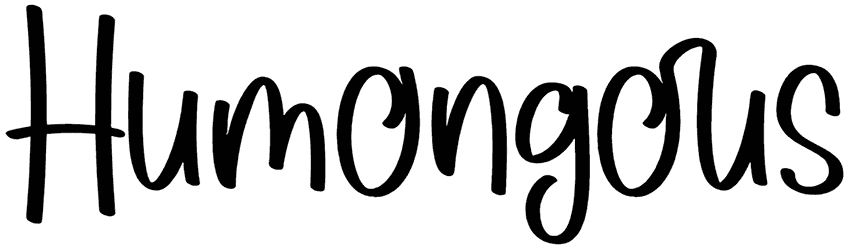
Humongous Font
Would you like to bring a real and playful atmosphere to your novel design? Then you are at the right place; this handwriting font is one of the best with its unique brush lettering. Even the absence of numbers and punctuation marks is not an obstacle to the good performance of Humongous in displaying your designs from postcards to branding.